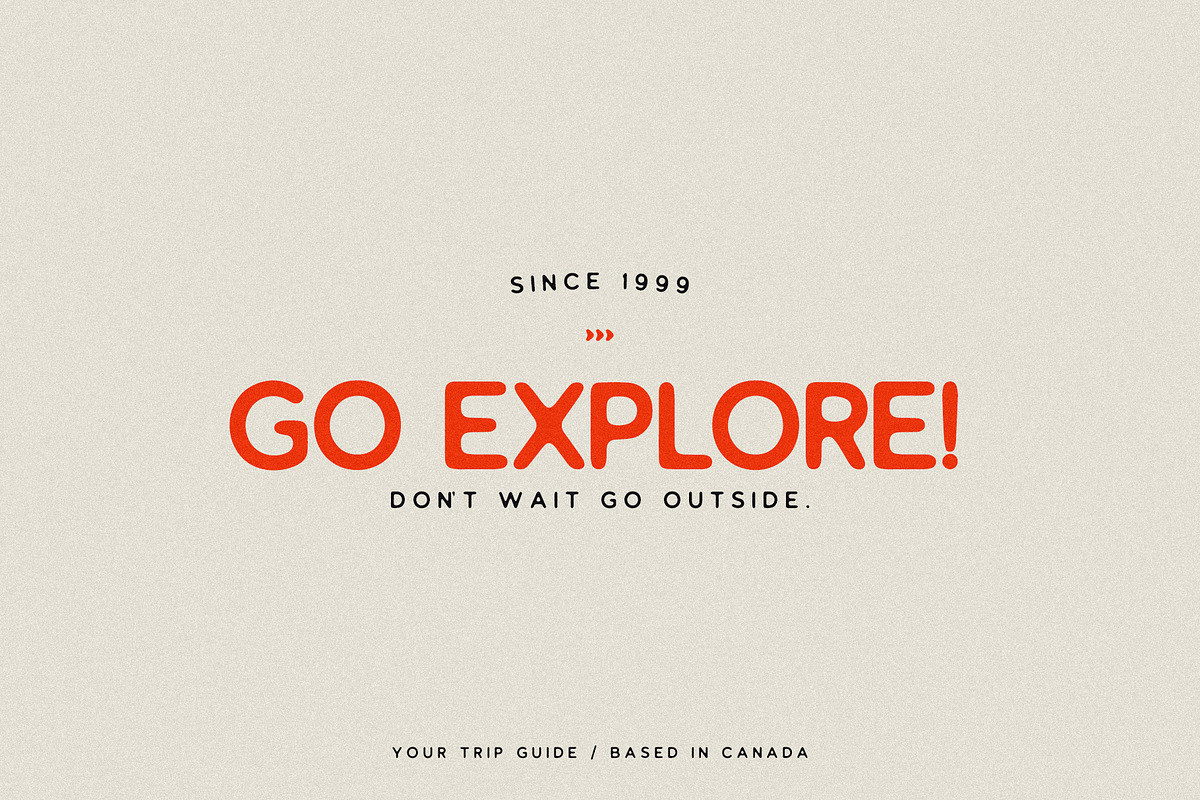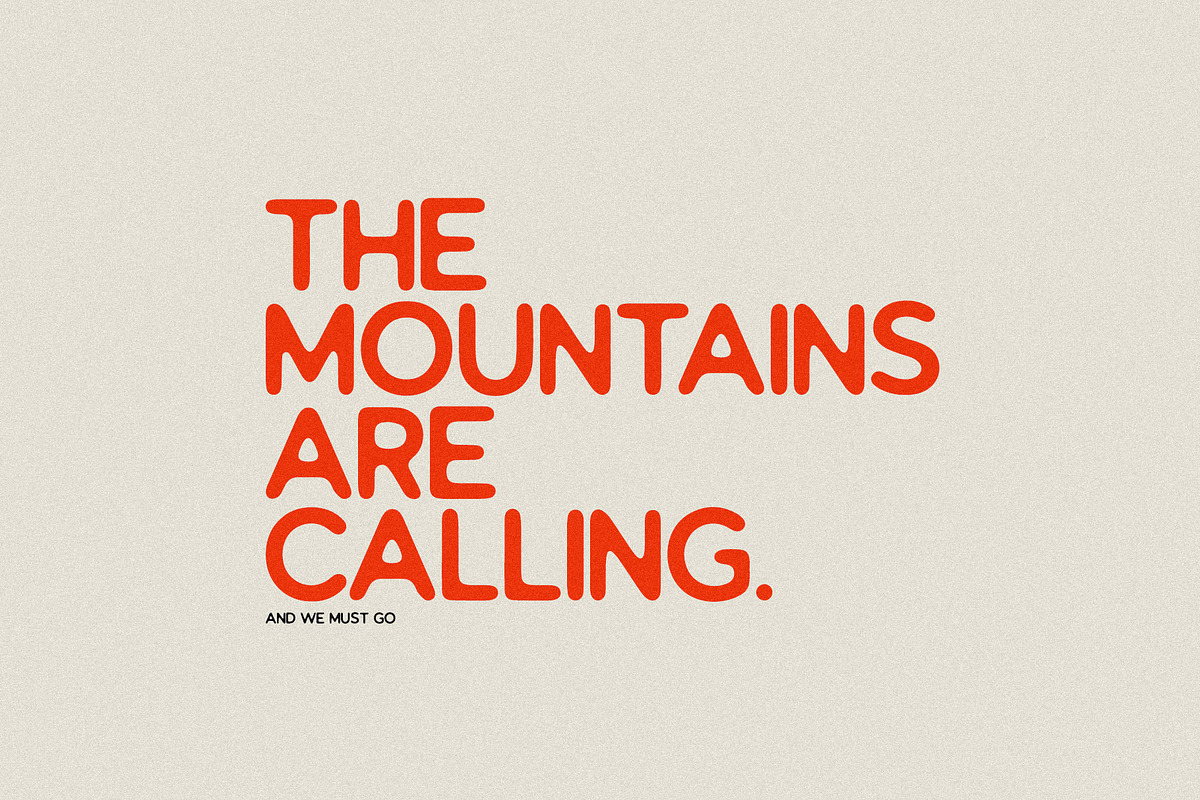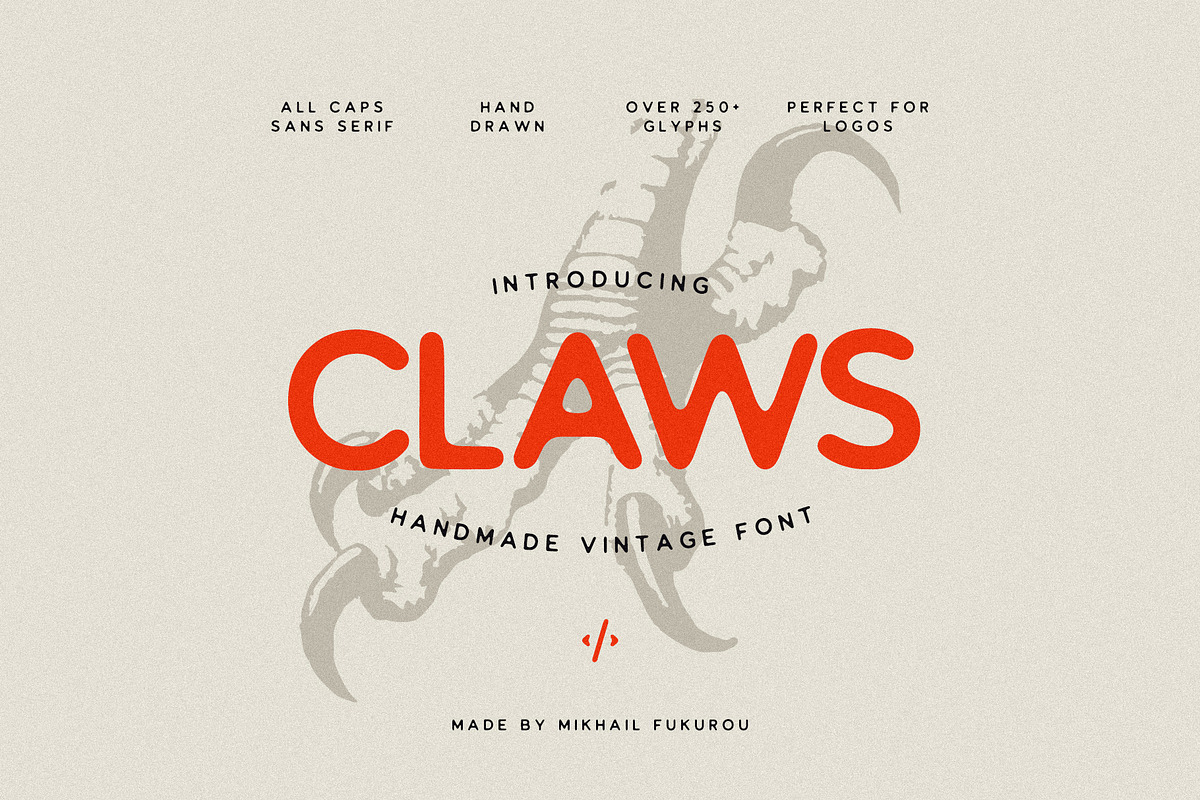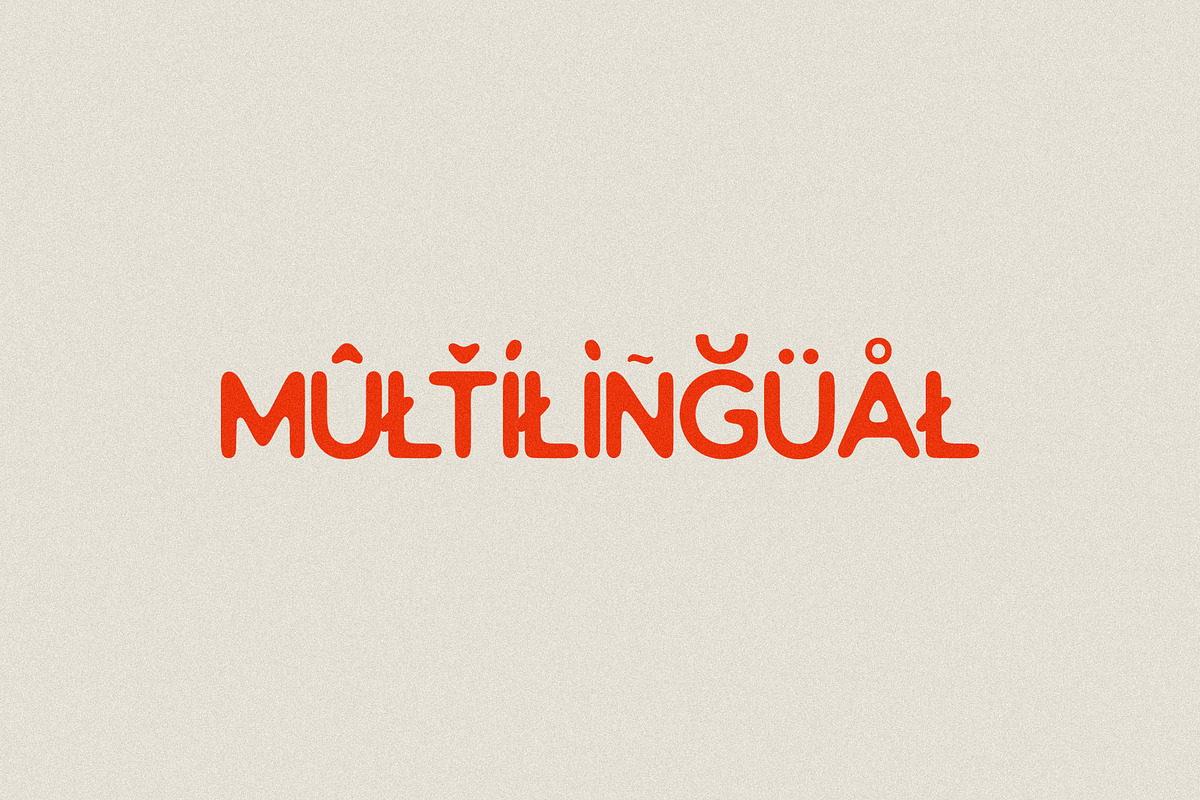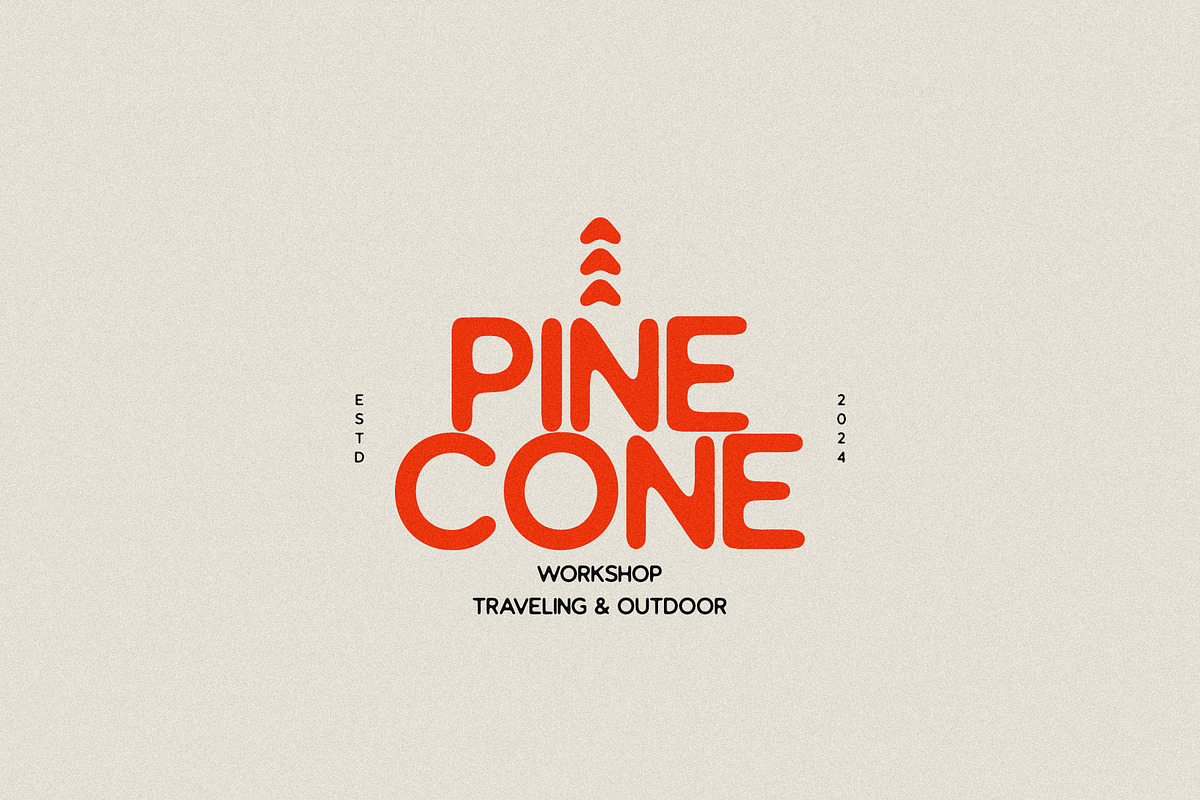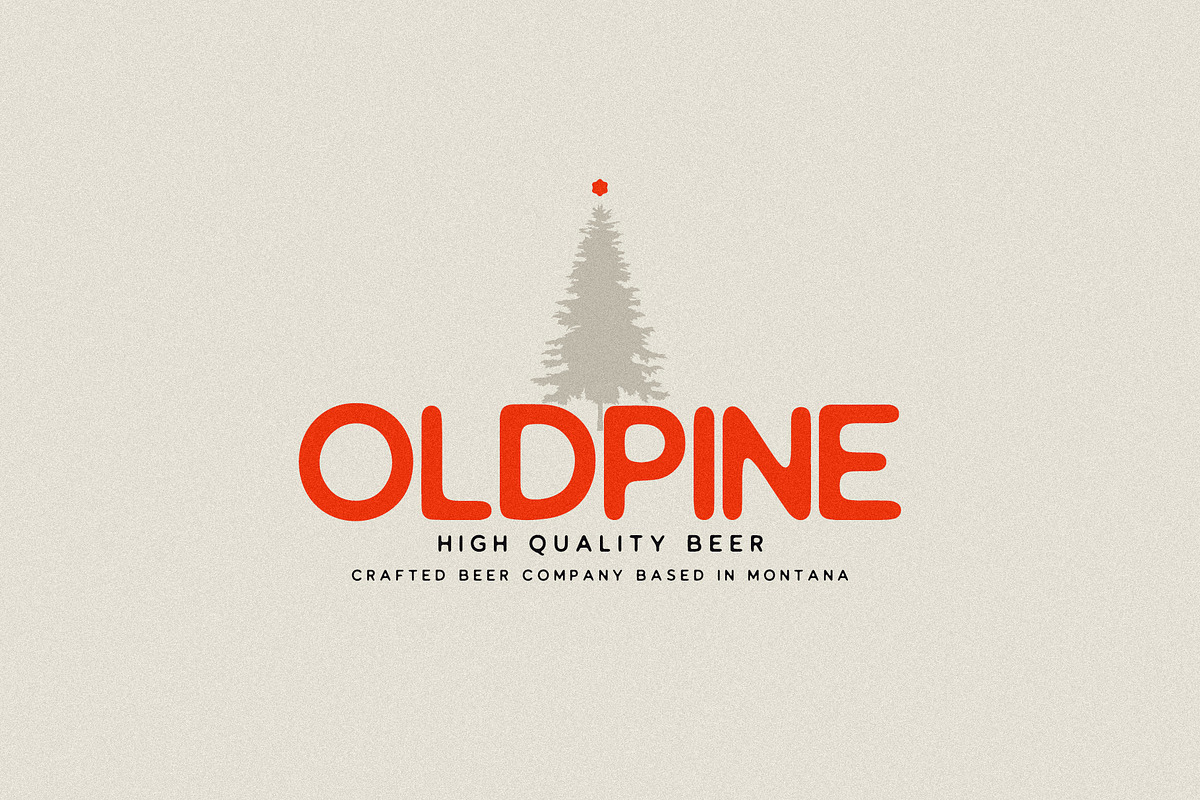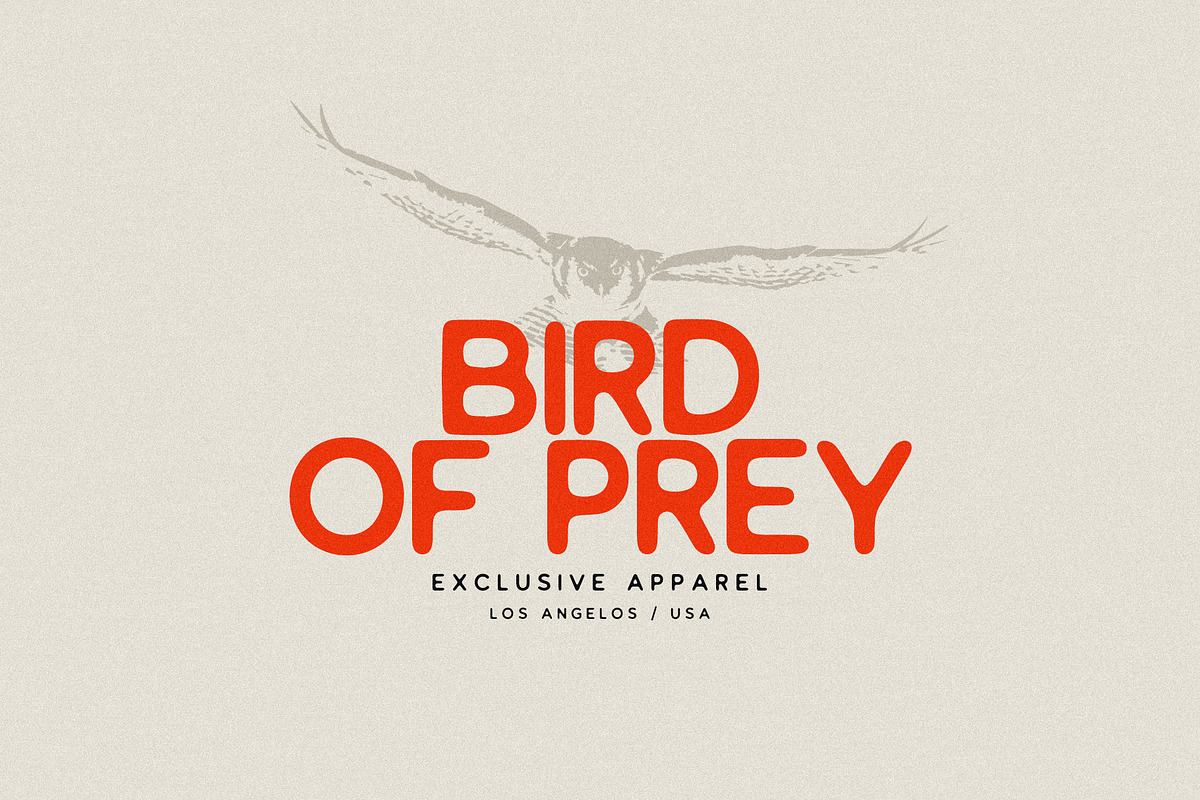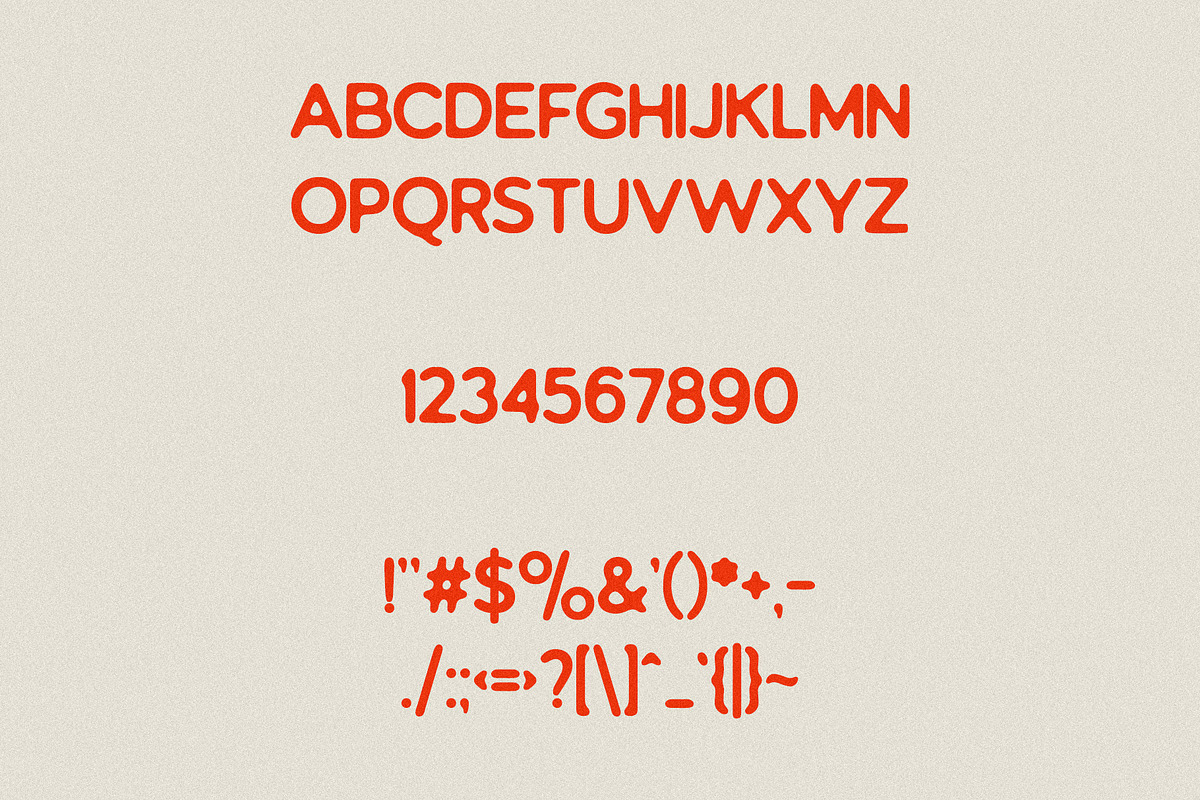
CLAWS - Vintage & Round Sans Serif
CLAWS is a vintage and round sans serif font that combines retro style with a vintage twist. Its unique design makes it perfect for a wide range of projects, from branding to editorial design. With its clean lines and round curves, CLAWS adds a touch of old style to any text. Whether you're looking to create a retro-inspired logo or give your website a fresh look, CLAWS is sure to make a statement.
CLAWS features:
- Letters
- More than 250+ glyphs